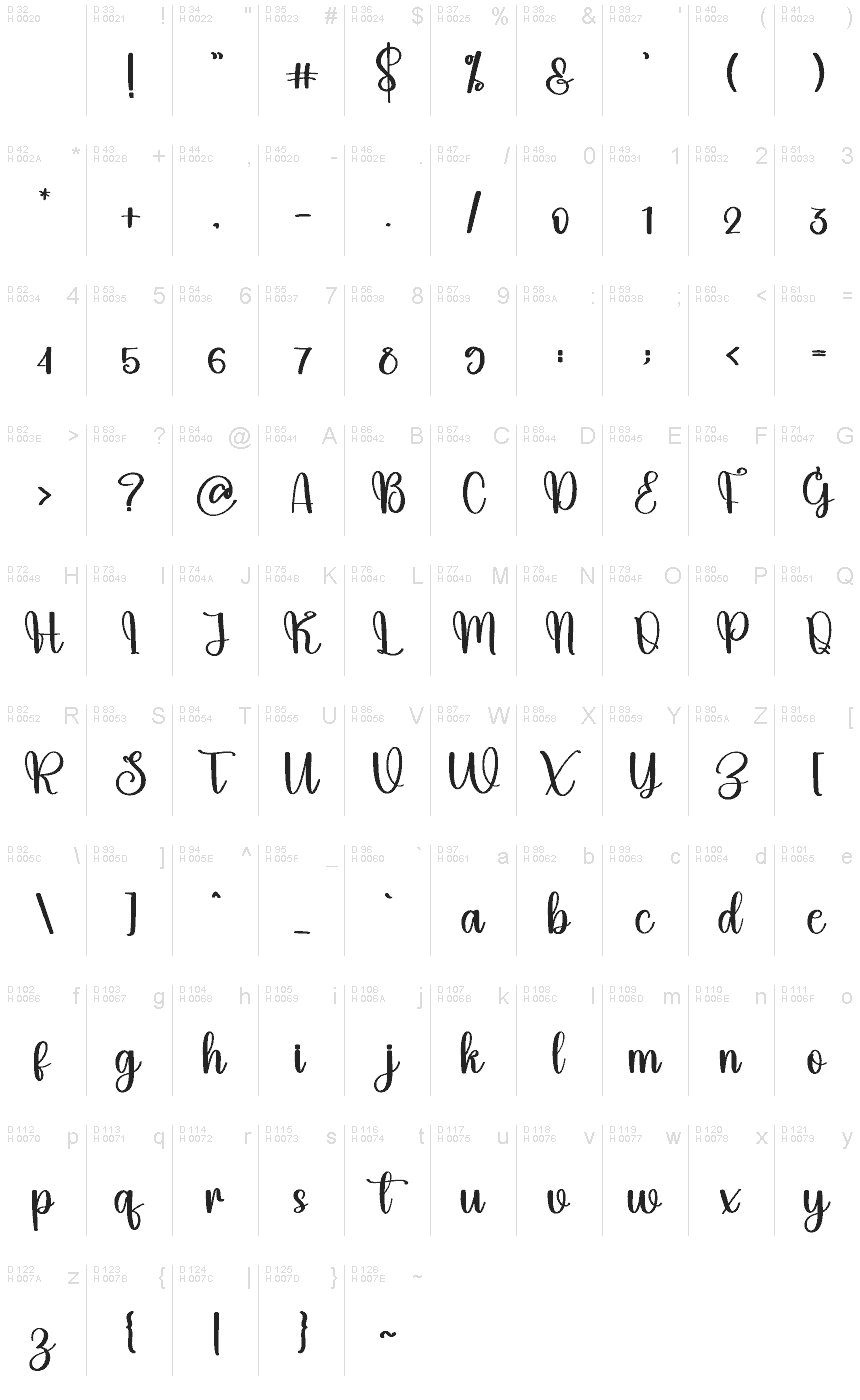
Mothers
Mothers font by Inermedia Studio is a free handwritten font that embodies an elegant, expressive atmosphere. With its modern script style and decorative flair, this font delivers an inviting touch perfect for contemporary applications in greeting cards and wedding invitations.